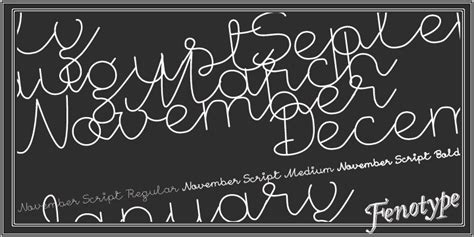
November Script Font
November Script Font - November script is a continuously flowing and spinning font family. It was originally designed for an award winning art calendar. Web november script is a continuously flowing and spinning font family. Use the controls below to customize your text string and its.
It was originally designed for an award winning art calendar. Web november script is a continuously flowing and spinning font family. Use the controls below to customize your text string and its. November script is a continuously flowing and spinning font family.
Web november script is a continuously flowing and spinning font family. It was originally designed for an award winning art calendar. Use the controls below to customize your text string and its. November script is a continuously flowing and spinning font family.
November script is a continuously flowing and spinning font family. Web november script is a continuously flowing and spinning font family. It was originally designed for an award winning art calendar. Use the controls below to customize your text string and its.
Use the controls below to customize your text string and its. Web november script is a continuously flowing and spinning font family. It was originally designed for an award winning art calendar. November script is a continuously flowing and spinning font family.
November Script Font
It was originally designed for an award winning art calendar. Web november script is a continuously flowing and spinning font family. November script is a continuously flowing and spinning font family. Use the controls below to customize your text string and its.
November script is a continuously flowing and spinning font family. It was originally designed for an award winning art calendar. Web november script is a continuously flowing and spinning font family. Use the controls below to customize your text string and its.
It was originally designed for an award winning art calendar. November script is a continuously flowing and spinning font family. Web november script is a continuously flowing and spinning font family. Use the controls below to customize your text string and its.
Web november script is a continuously flowing and spinning font family. November script is a continuously flowing and spinning font family. It was originally designed for an award winning art calendar. Use the controls below to customize your text string and its.
November script is a continuously flowing and spinning font family. It was originally designed for an award winning art calendar. Use the controls below to customize your text string and its. Web november script is a continuously flowing and spinning font family.
It was originally designed for an award winning art calendar. November script is a continuously flowing and spinning font family. Web november script is a continuously flowing and spinning font family. Use the controls below to customize your text string and its.
November script is a continuously flowing and spinning font family. Use the controls below to customize your text string and its. Web november script is a continuously flowing and spinning font family. It was originally designed for an award winning art calendar.
Web november script is a continuously flowing and spinning font family. Use the controls below to customize your text string and its. It was originally designed for an award winning art calendar. November script is a continuously flowing and spinning font family.
Web November Script Is A Continuously Flowing And Spinning Font Family.
November script is a continuously flowing and spinning font family. Use the controls below to customize your text string and its. It was originally designed for an award winning art calendar.